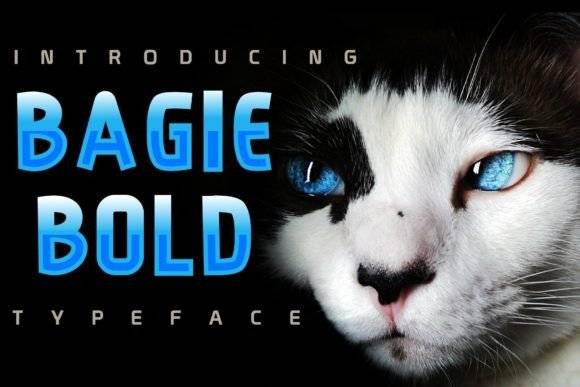
Bagie Font for Cricut, Silhouette and Printable Designs
This digital font is crafted for seamless compatibility with cutting machines and printable formats, making it an essential tool for crafters and design entrepreneurs alike. As a dedicated font file, it ensures crisp rendering across digital and physical surfaces without compromising legibility or visual charm. Its versatility makes it ideal for a wide range of applications, from personalized party decorations to branding materials. The popularity of barbie font usage for designs further highlights its appeal, allowing creators to infuse a playful yet stylish touch into their projects. Whether you're crafting unique invitations or designing eye-catching merchandise, this font delivers creativity without sacrificing quality.
Perfect for personalizing merchandise, crafting signage, or producing branded materials, the Bagie Font delivers high-resolution results with a touch of playful elegance. It reinforces the font entity while supporting broad creative applications. In addition to its versatility, the Bagie Font pairs beautifully with other typefaces, allowing for unique combinations that enhance any design. For those seeking an alternative, the balinera font for crafting projects also offers a distinct personality that complements a variety of themes. Together, these fonts empower creators to express their individuality through memorable visual experiences. The versatile design of the Bagie Font makes it an ideal choice for those engaging in DIY projects and custom creations. Whether you're designing eye-catching labels or unique gifts, this font stands out with its charm and readability. Additionally, the barqish font for cricut projects ensures that every cut is clean and defined, elevating your crafting game to new heights.
- Clean curves ideal for cutting and printing
- Perfect balance of style and function
| Feature | Bagie Font | Generic Bold Font | Generic Script Font |
| Creative Focus | Cut-friendly and print-ready | Emphasis on strong titles | Stylized for invitations or decor |
| Best Uses | Cricut, Silhouette, printable crafts | Logos, banners, bold marketing | Cards, wedding signage, decor |
| Style Aesthetic | Playful, clean, versatile | Bold, impactful | Handwritten, decorative |